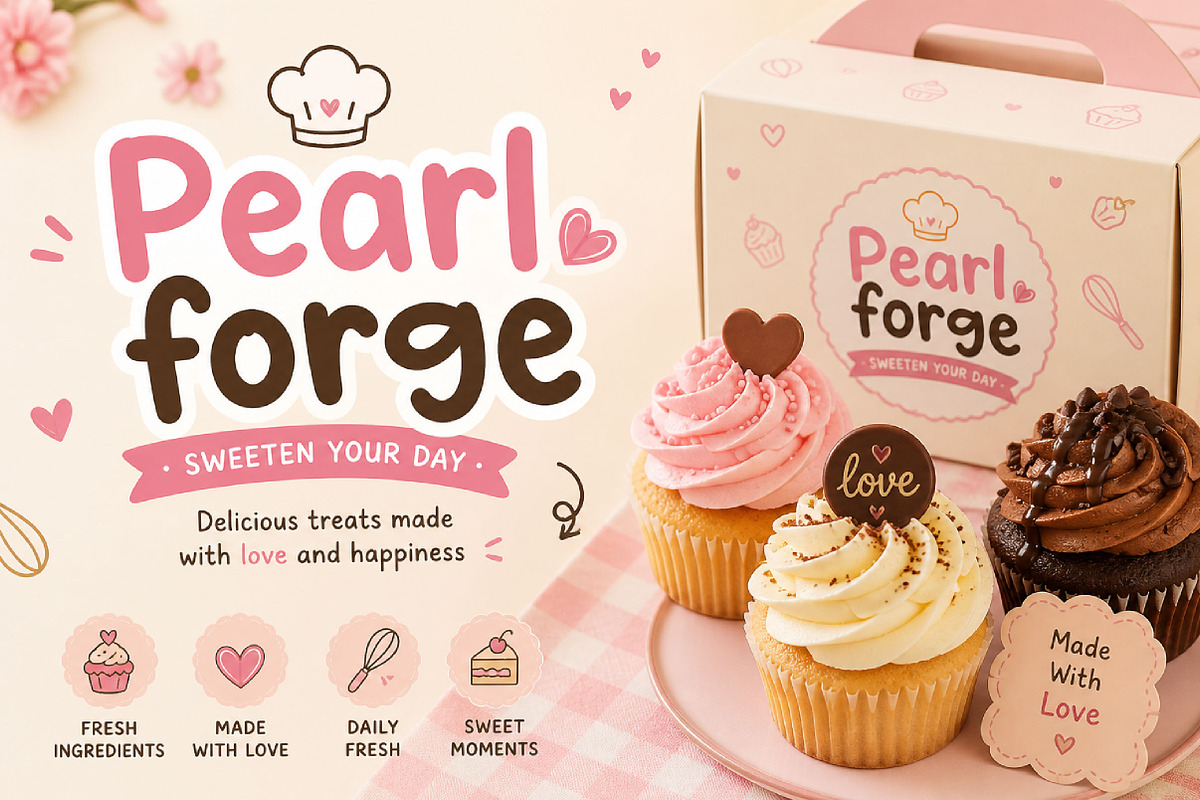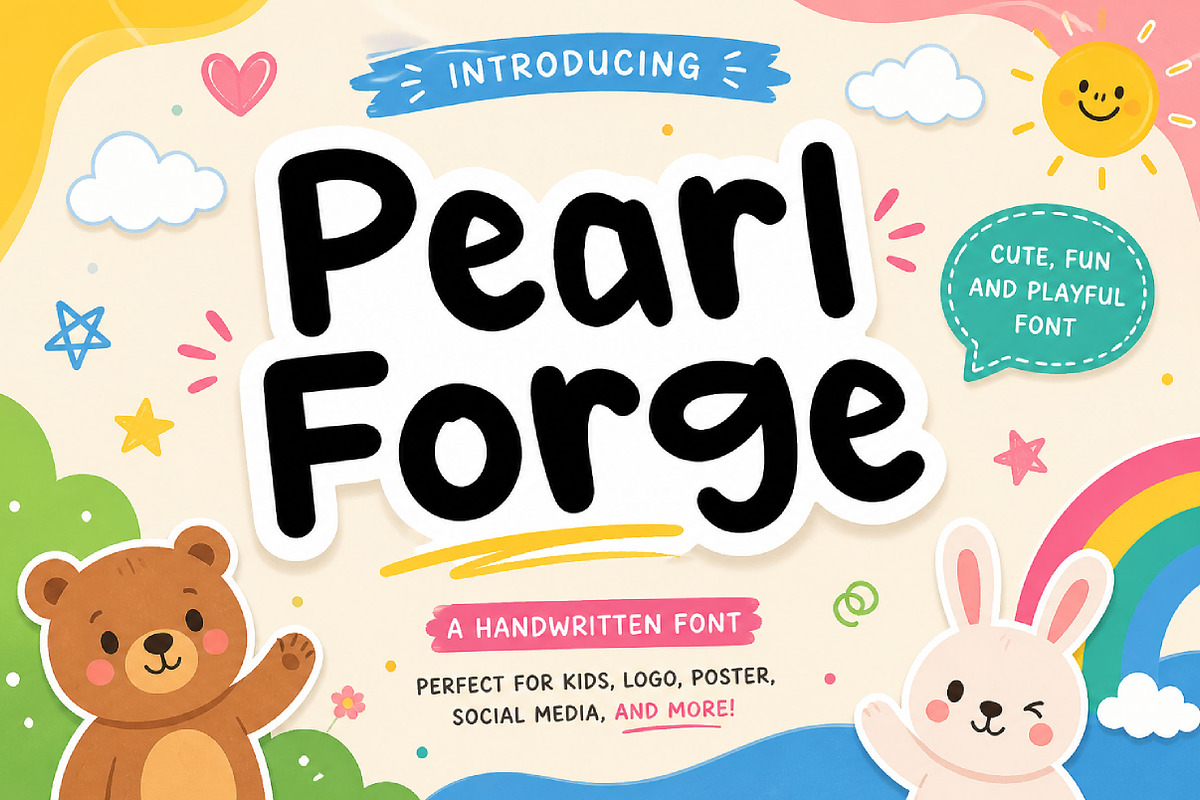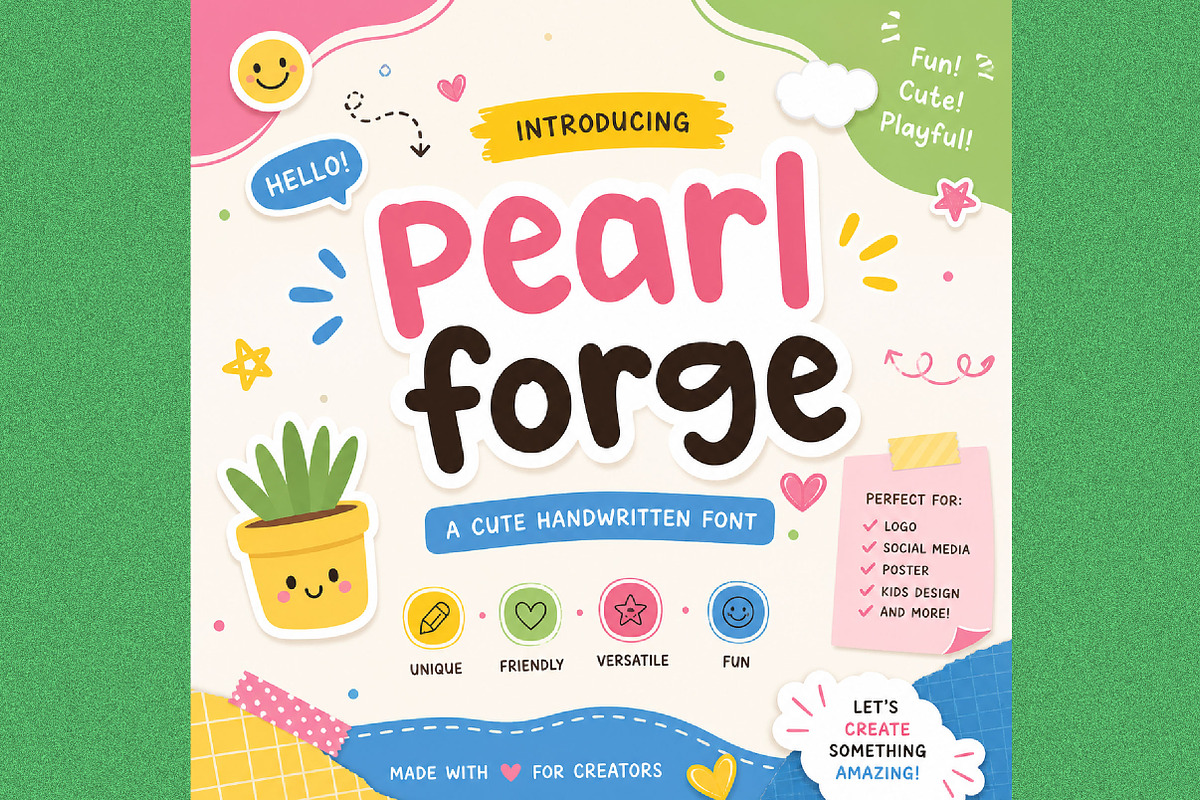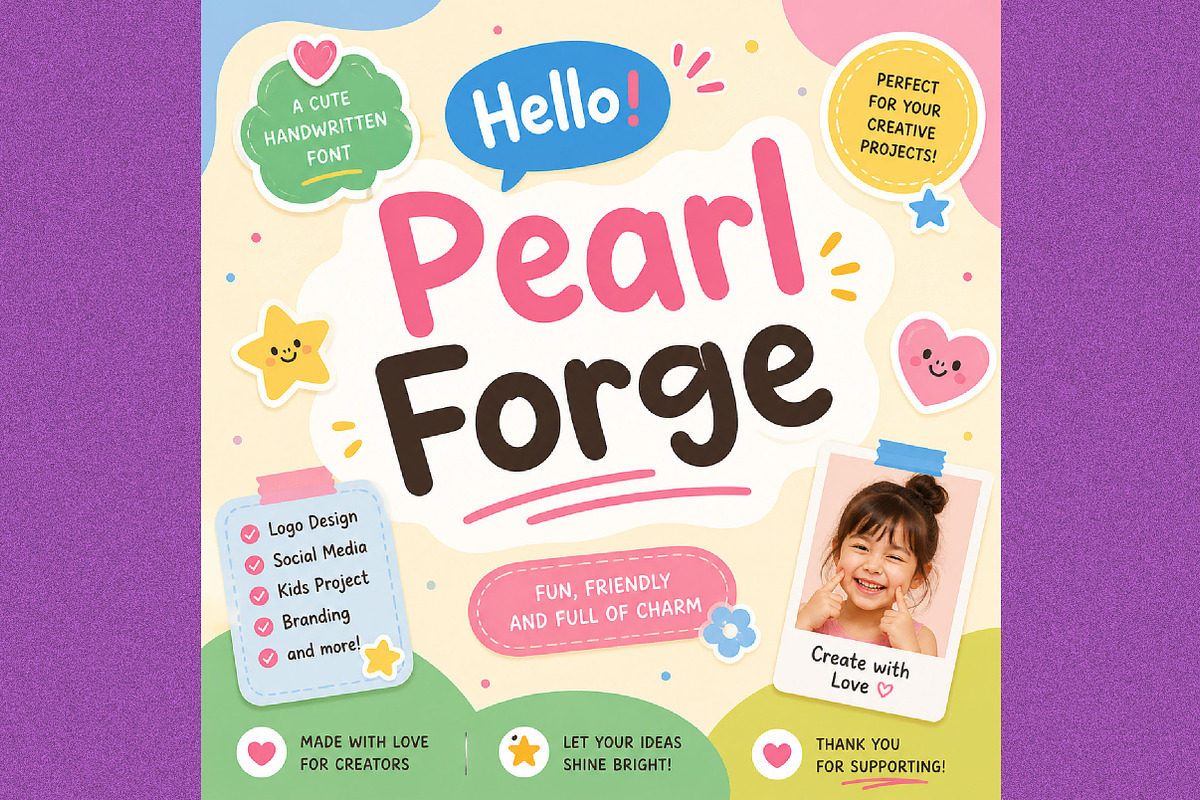
Pearl Forge
Pearl Forge – Playful Bold Handwritten Font
Pearl Forge is a bold, playful handwritten font with rounded shapes and a friendly modern style, perfect for logos, branding, packaging, social media, and creative designs.
Pearl Forge is a bold handwritten display font crafted to bring a fun, friendly, and expressive feel to your creative projects. With its thick strokes, soft rounded edges, and slightly irregular hand-drawn forms, this font delivers a warm and approachable look while still maintaining strong visual impact.
Its playful yet bold character makes Pearl Forge perfect for designs that need to feel both eye-catching and inviting. Whether you are working on branding, logo design, product packaging, posters, social media graphics, merchandise, children’s products, or lifestyle projects, this font helps your typography stand out with charm and personality.
Pearl Forge works especially well for brands that want a casual, creative, and modern handwritten aesthetic.
Logos and branding
Posters and headlines
Product packaging
Merchandise design
Children’s products
Lifestyle branding
Website headers
Creative quotes
Advertising materials
Bold handwritten style
Rounded and soft shapes
Playful modern look
Natural hand-drawn feel
Perfect for display use